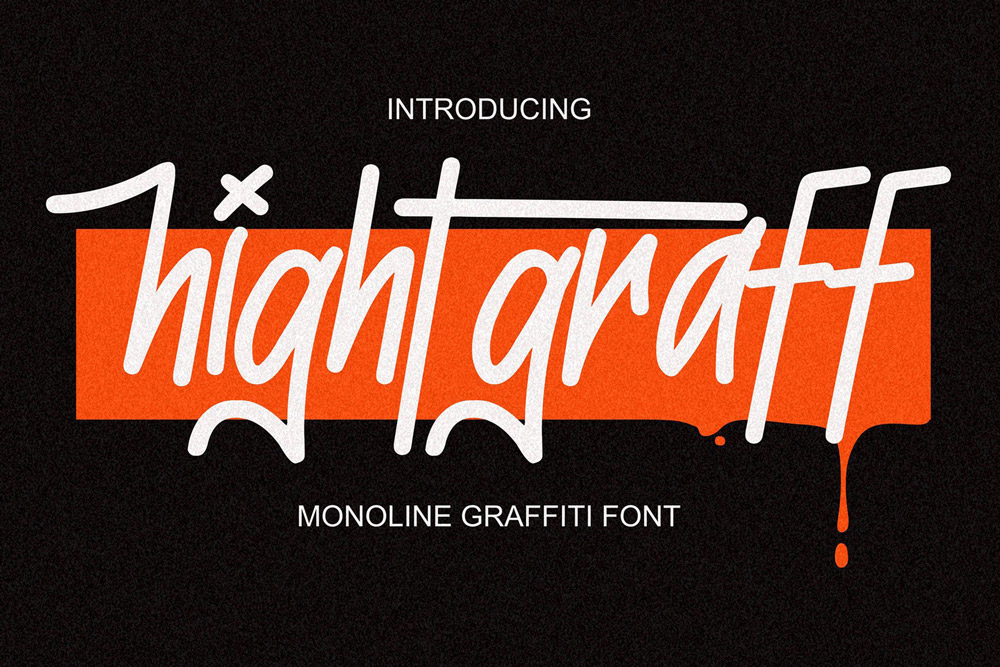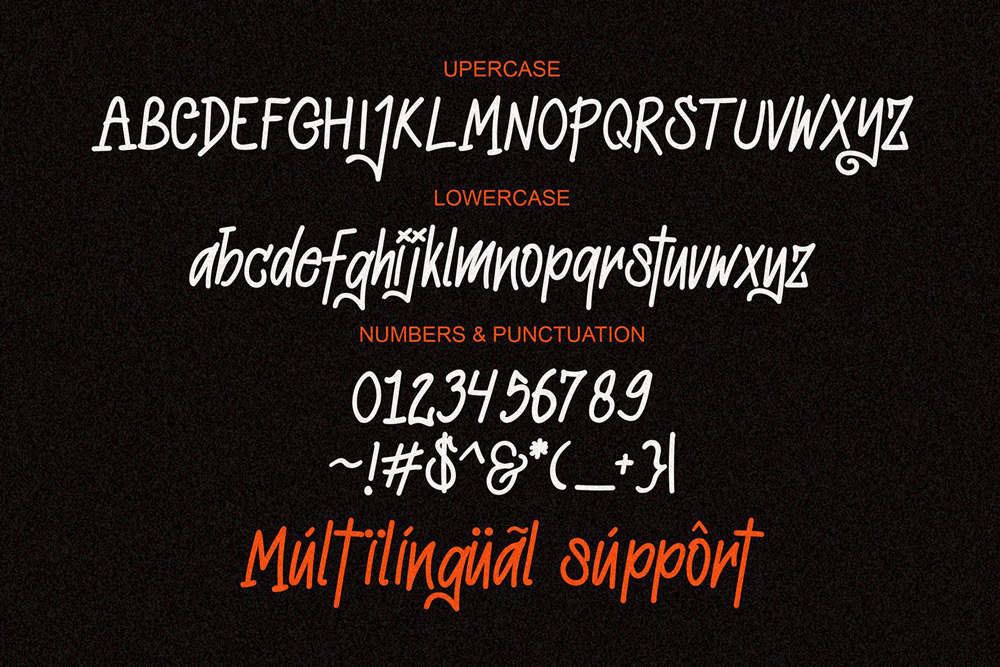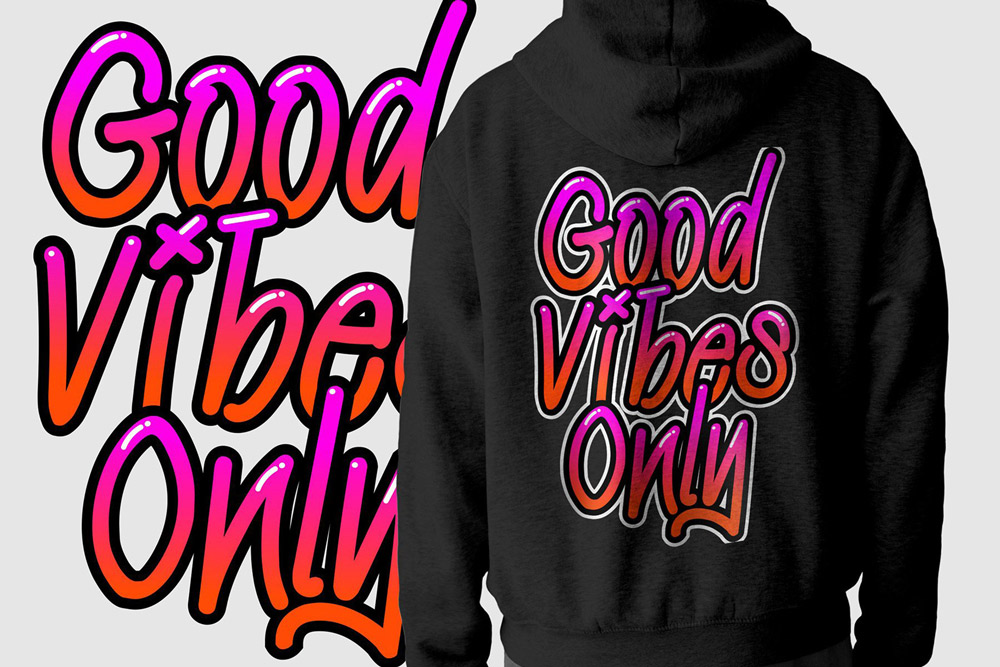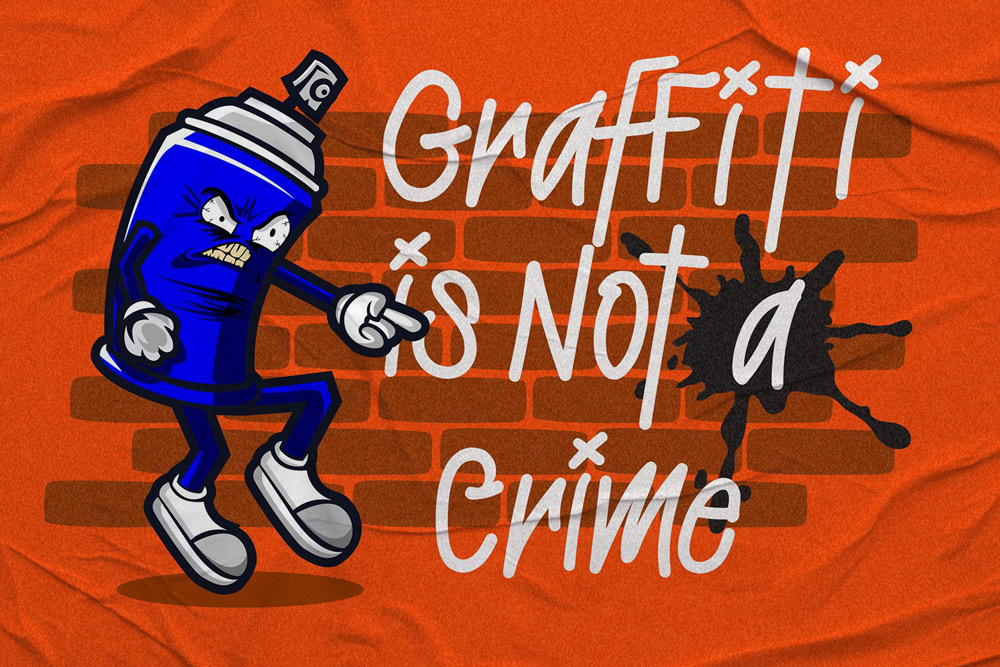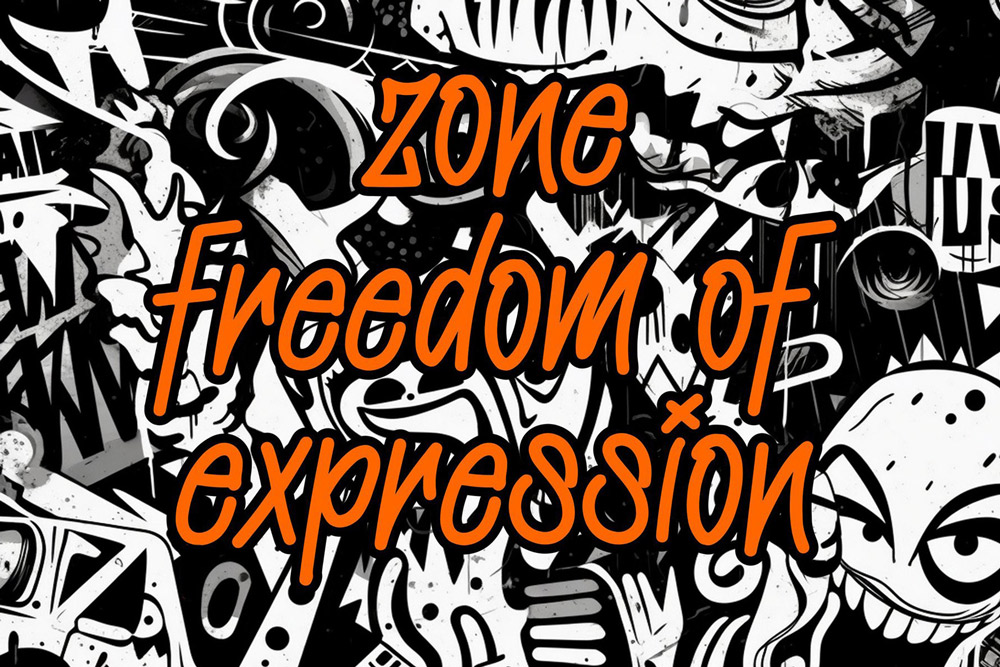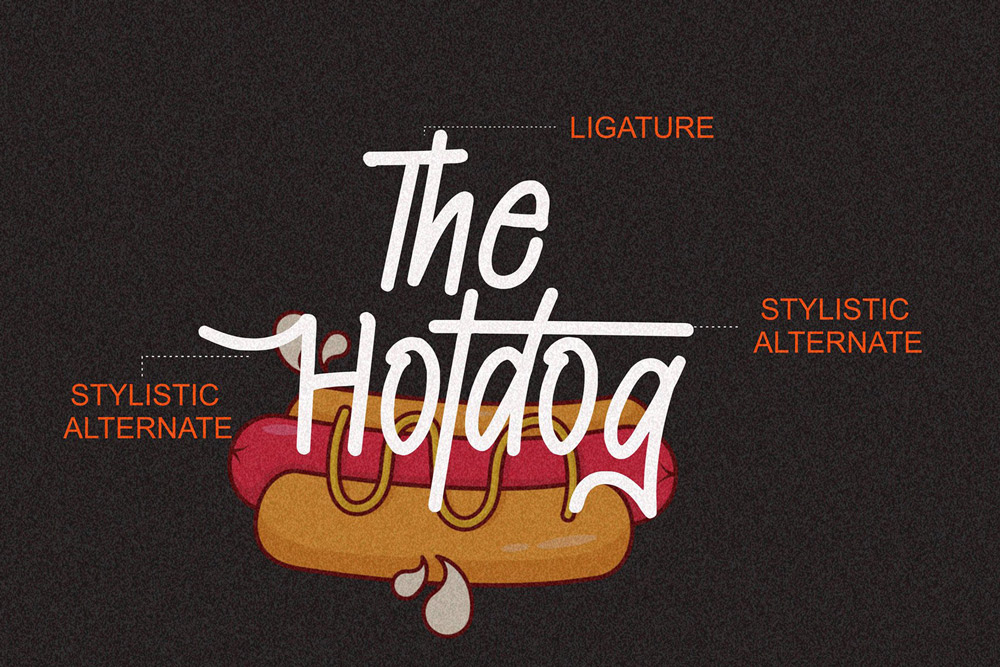
About Hightgraff
Hightgraff – Monoline Handwritten Graffiti Style Font
Hightgraff is a clean yet expressive graffiti font that blends monoline precision with the natural flow of handwritten street lettering. Designed for modern creators, this monoline graffiti font delivers a smooth and stylish urban aesthetic while maintaining strong readability. Whether you’re creating branding, social media visuals, or streetwear graphics, Hightgraff graffiti font offers a refined take on authentic street typography.
This handwritten graffiti font captures the essence of tagging culture in a more controlled and polished form. With consistent stroke weight and fluid motion, Hightgraff stands out as a versatile urban graffiti font that fits both minimal and expressive design styles.
Clean Monoline Structure with Urban Character
Hightgraff graffiti font is built around a monoline concept, ensuring each stroke remains consistent for a clean and modern appearance. This structure makes the graffiti font highly readable while still maintaining the organic feel of handwritten lettering. The result is a monoline graffiti font that feels both professional and artistic.
Inspired by real street tagging techniques, this urban graffiti font introduces subtle imperfections and natural flow, giving your typography personality without sacrificing clarity. It’s perfect for designers who want a balanced graffiti typeface that works across multiple creative directions.
A Modern Graffiti Font for Versatile Design
Unlike heavy or chaotic styles, Hightgraff graffiti font offers a more refined approach. This handwritten graffiti font is ideal for branding projects that require a clean yet urban identity. Its monoline structure allows it to adapt easily to logos, packaging, and digital content.
This graffiti display font is designed for flexibility. Whether you’re creating bold headlines or subtle typographic accents, Hightgraff provides a consistent and stylish solution. It’s a perfect choice for designers who want a graffiti font that feels modern, clean, and expressive at the same time.
Complete Character Set & Typography Features
Hightgraff – Monoline Handwritten Graffiti Font includes a full set of professional features to support your creative workflow.
Uppercase Characters
Clean and expressive uppercase letters designed with a consistent monoline graffiti font style for strong visual impact.
Multilingual Support
Supports multiple languages, making this graffiti font suitable for international branding and global audiences.
Numbers & Punctuation
Includes a complete set of numbers and punctuation for full flexibility in design using this urban graffiti font.
Stylistic Alternates
Comes with stylistic alternates that allow you to customize your typography and create more dynamic compositions using this handwritten graffiti font.
- Clean and modern monoline graffiti font design
- Handwritten style with authentic urban influence
- Stylistic alternates for creative flexibility
- High readability for branding and display use
- Perfect for urban branding and streetwear design
- Works across digital and print platforms
- Balanced between minimal and expressive style
Why Designers Love Hightgraff
Designers love Hightgraff graffiti font because it offers a unique balance between simplicity and character. Unlike traditional graffiti styles that can be overly complex, this monoline graffiti font provides clarity while still maintaining an authentic street feel.
This handwritten graffiti font is especially محبوب among designers working on branding and digital content. Its clean structure makes it easy to use, while the stylistic alternates add creative depth. This combination makes Hightgraff a highly versatile graffiti font for modern design projects.
Another reason designers choose this urban graffiti font is its adaptability. It works well in both minimal and bold compositions, making it suitable for a wide range of creative applications. From logos to social media graphics, Hightgraff delivers consistent and professional results.
Perfect For Creative Projects
Hightgraff graffiti font is ideal for:
- Streetwear branding
- Logo design with handwritten style
- Social media graphics
- Minimalist urban posters
- Packaging design
- Merchandise and apparel
If you’re looking for a monoline graffiti font that combines clarity and creativity, Hightgraff is the perfect solution.
Hightgraff – Monoline Handwritten Graffiti Style Font is more than just a typeface—it’s a modern design solution. With its clean structure and expressive details, this graffiti font gives you the freedom to create visually striking yet professional designs.
If you want a graffiti font that is versatile, stylish, and easy to use, Hightgraff is your ultimate choice. Elevate your typography, refine your visuals, and bring your ideas to life with a monoline graffiti font that truly stands out.